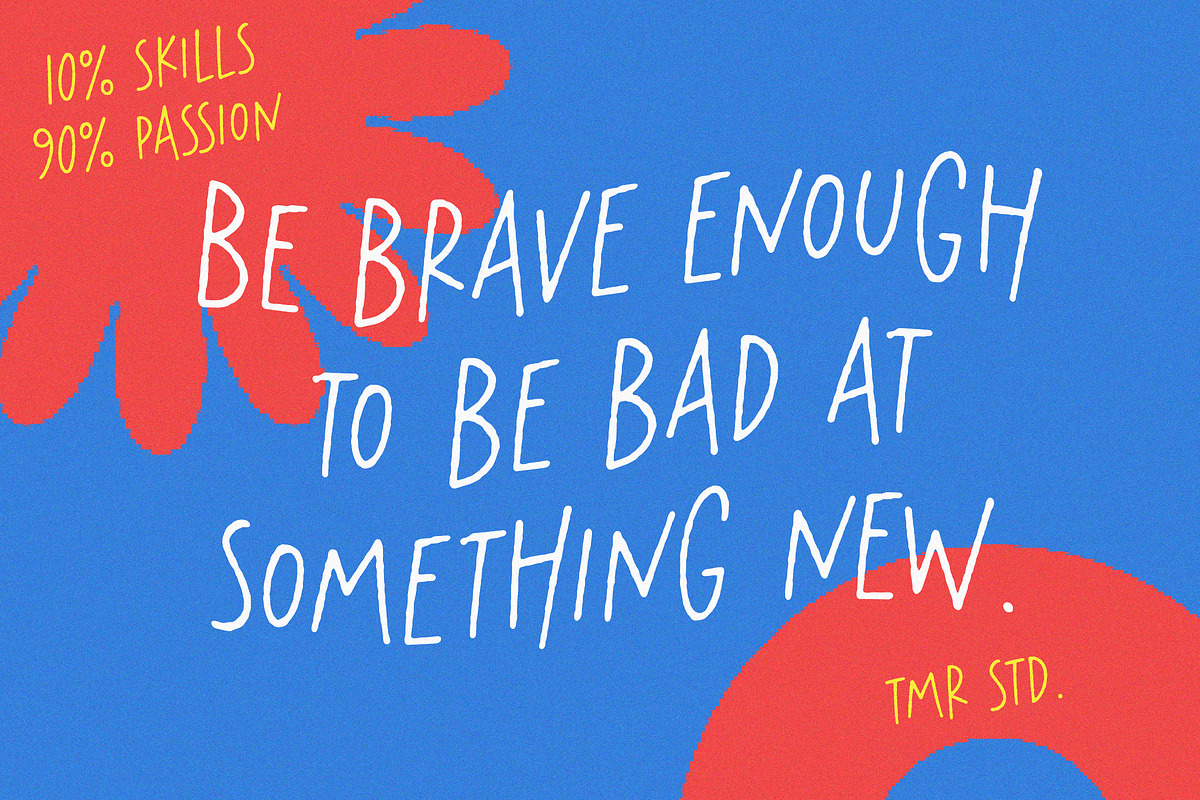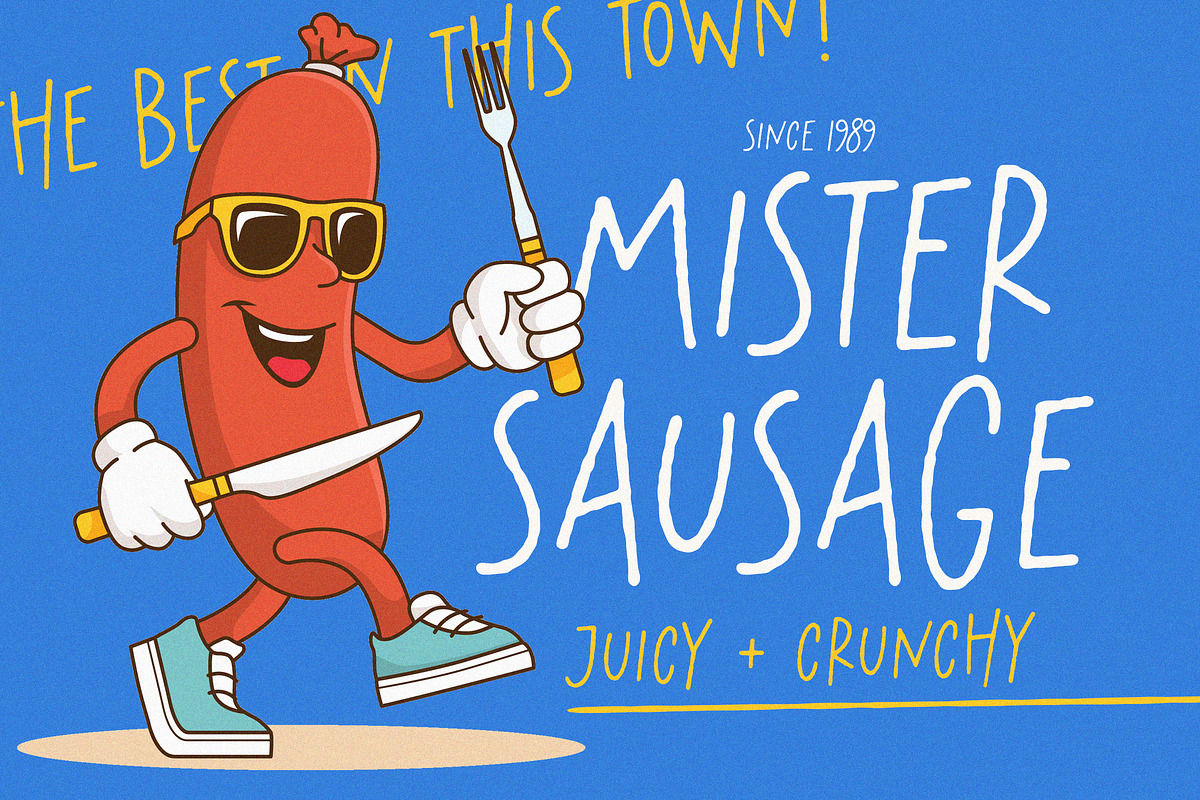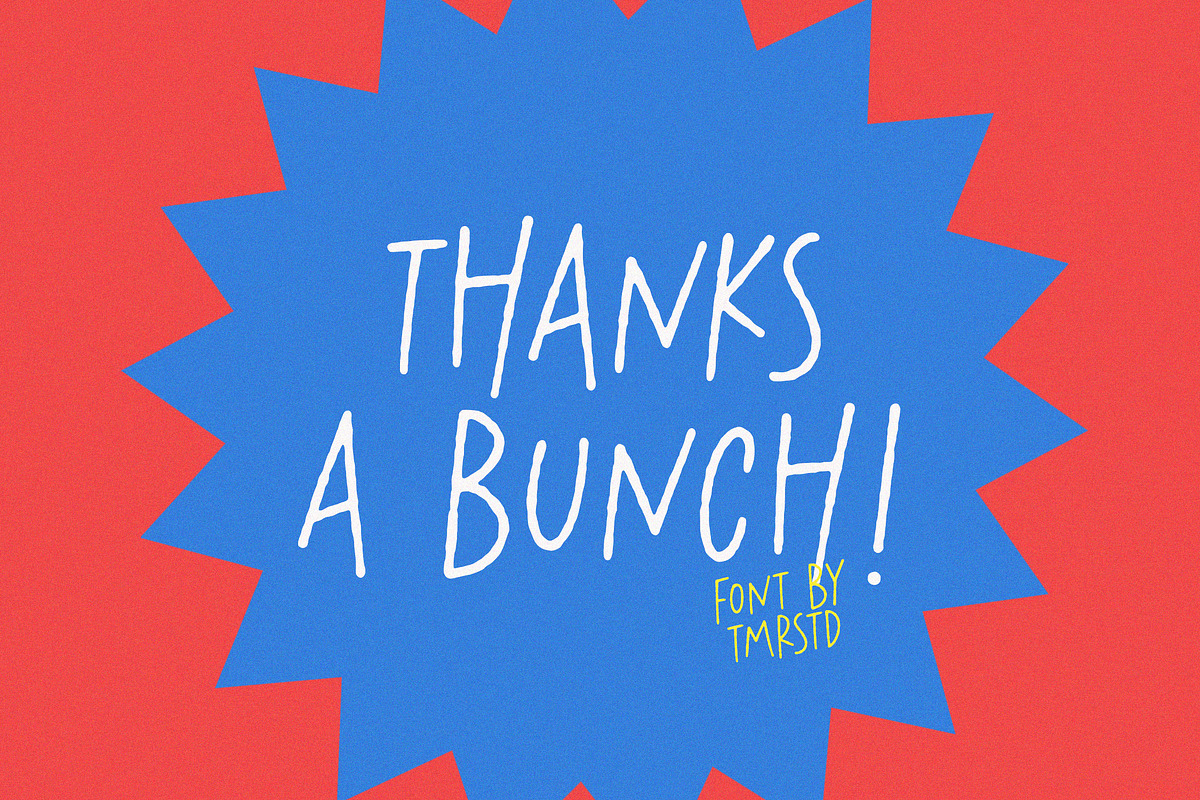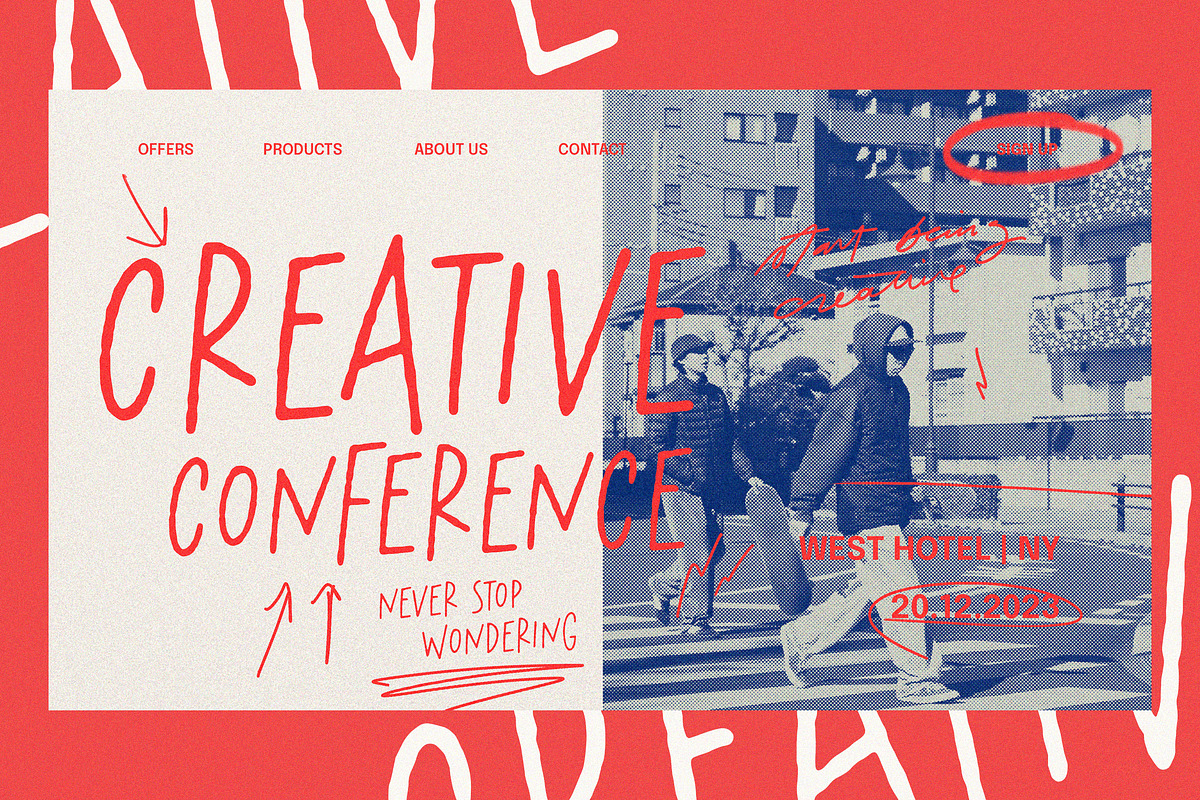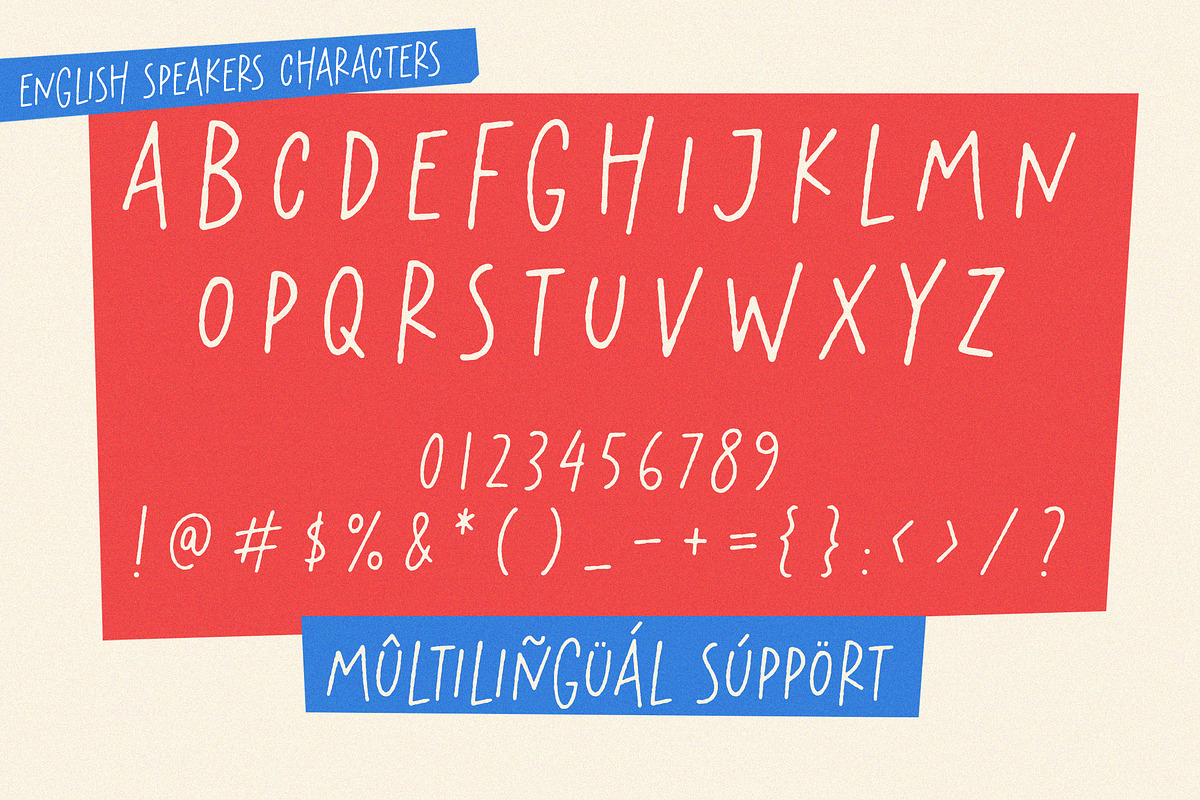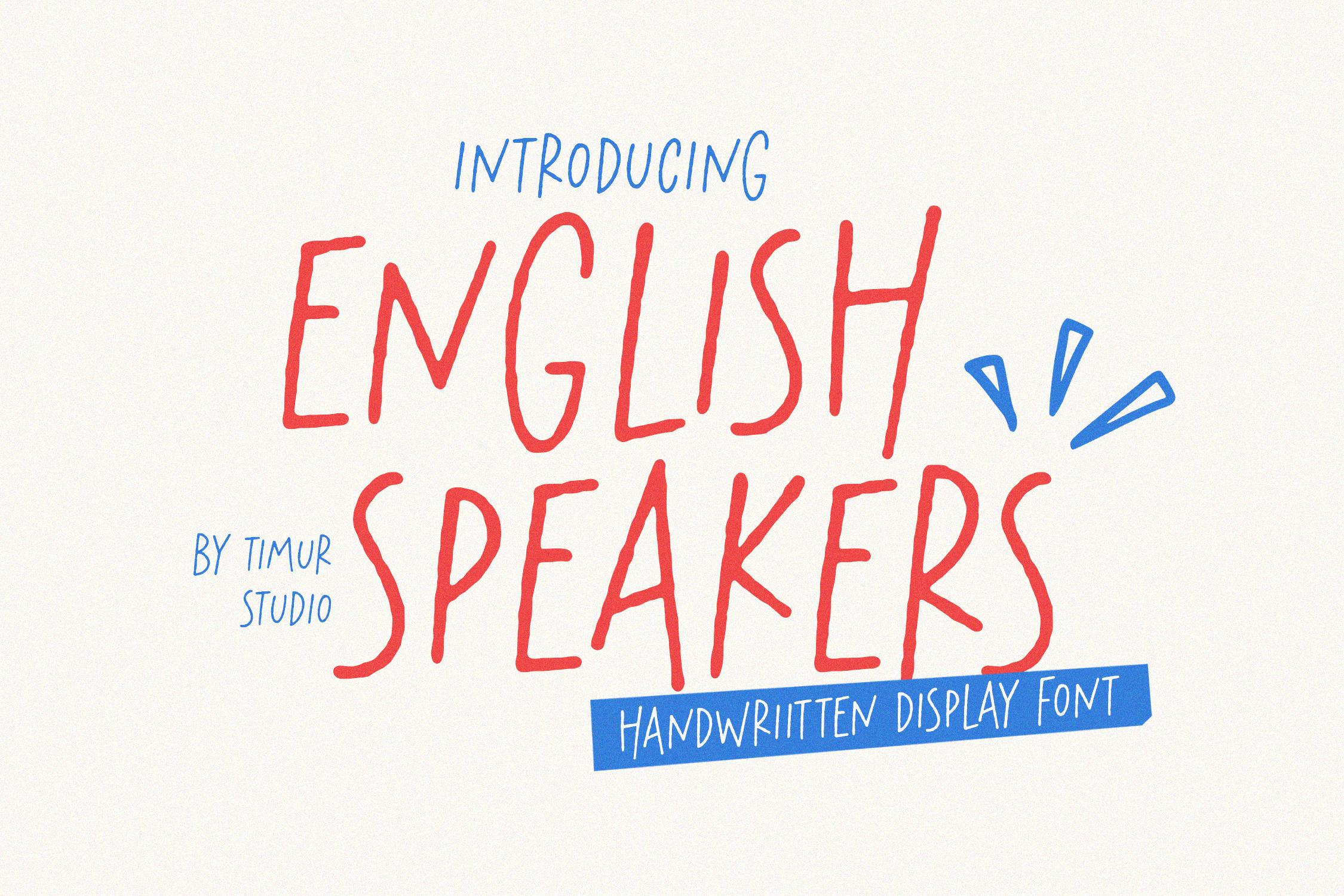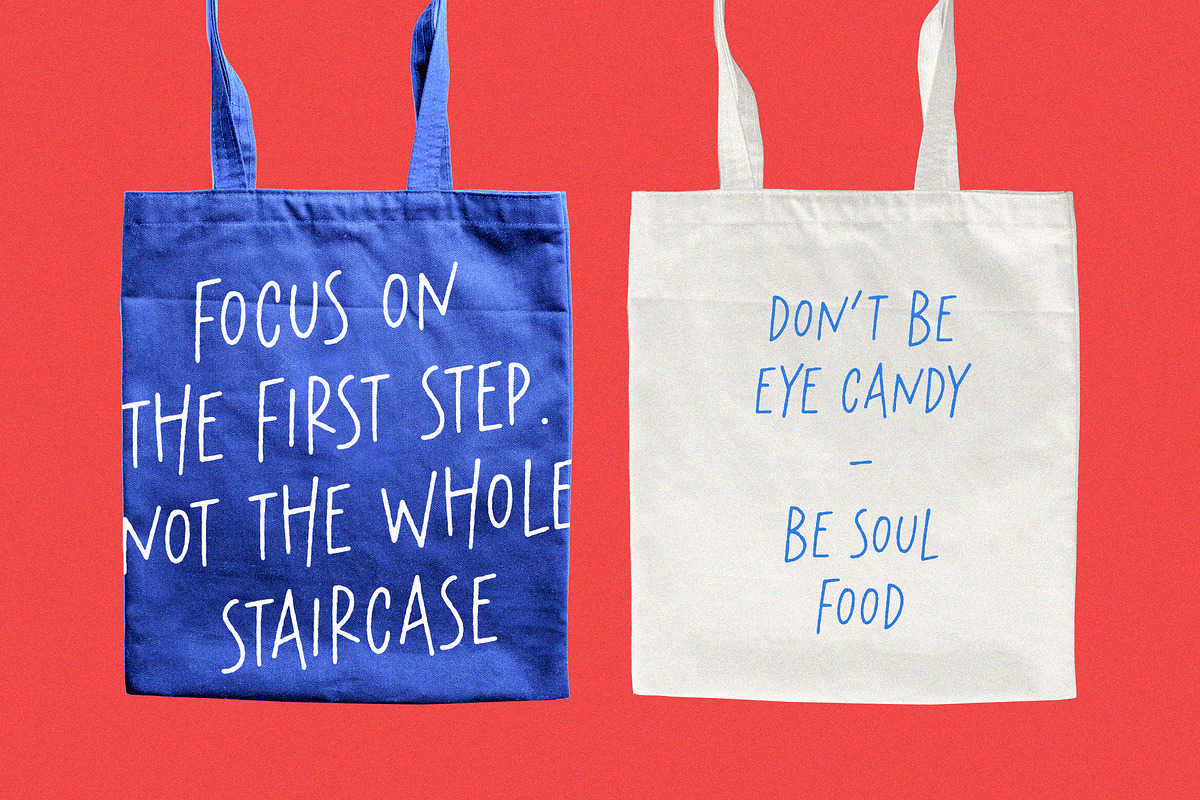
English Speakers Font
Introduced by Timurtype Studio!
English Speakers is a Handwritten Display Font
This font is a bold and expressive choice for your design projects. With its dynamic and energetic letterforms, this font captures the spirit and passion of spoken language. The fluid and exaggerated strokes give the English Speakers font a lively and animated aesthetic, making it perfect for attention-grabbing headlines, signage, and advertising materials. Whether you’re aiming for a vibrant and modern look or a playful and whimsical feel, the English Speakers font offers versatility and impact. Embrace the lively energy of the English Speakers handwritten display font and bring your designs to life with a burst of excitement.
English Speakers Font also supports multilingualism